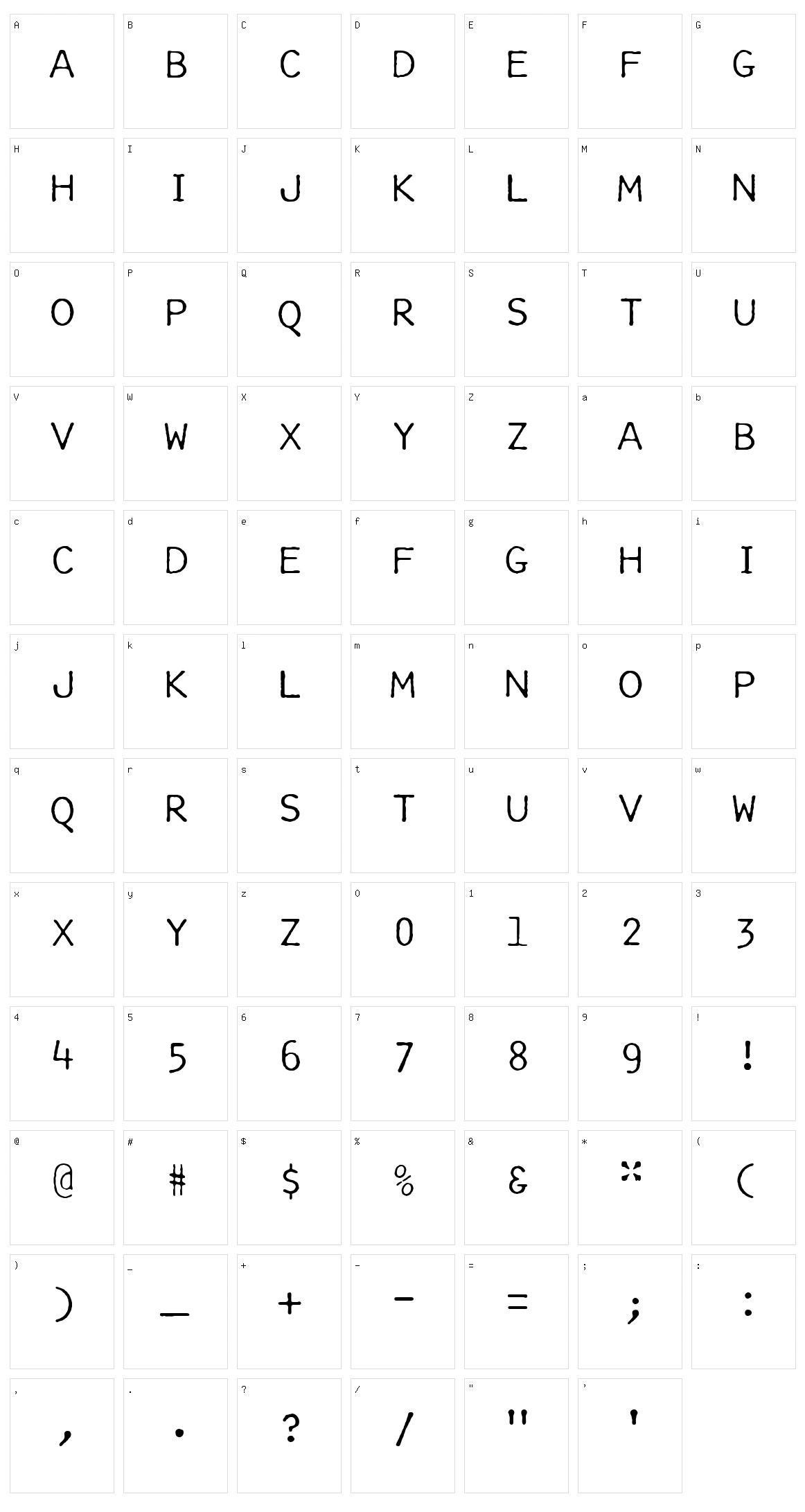
The free font IBM Selectric Manifold is carefully designed by Aleksandar Stevanov, showcasing a thoughtful balance of creativity and usability and falls under the Typewriter font style. When you download the ZIP file, it contains only 30.09 KB of font files, making it lightweight and quick to download. Please review the license details below to understand permitted usage and distribution rights. If license information is not available, we recommend using this font for personal projects only or contacting the author directly for commercial usage permissions.